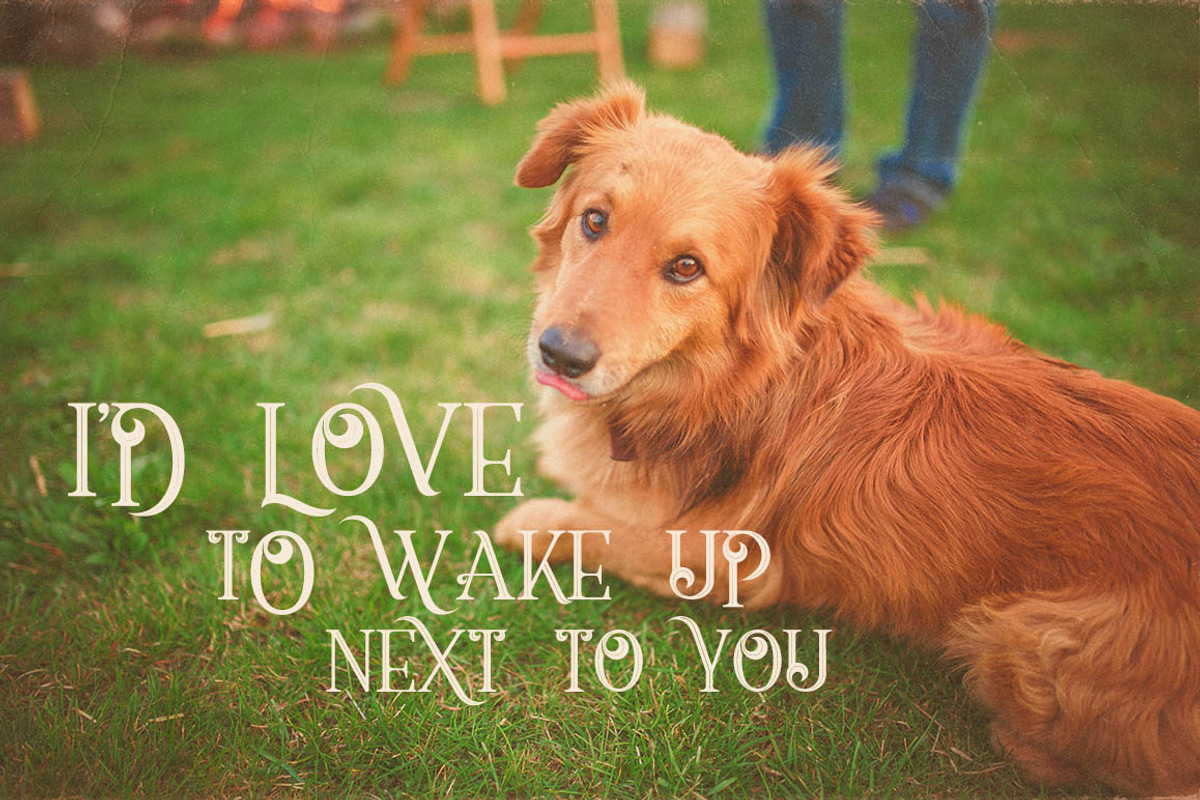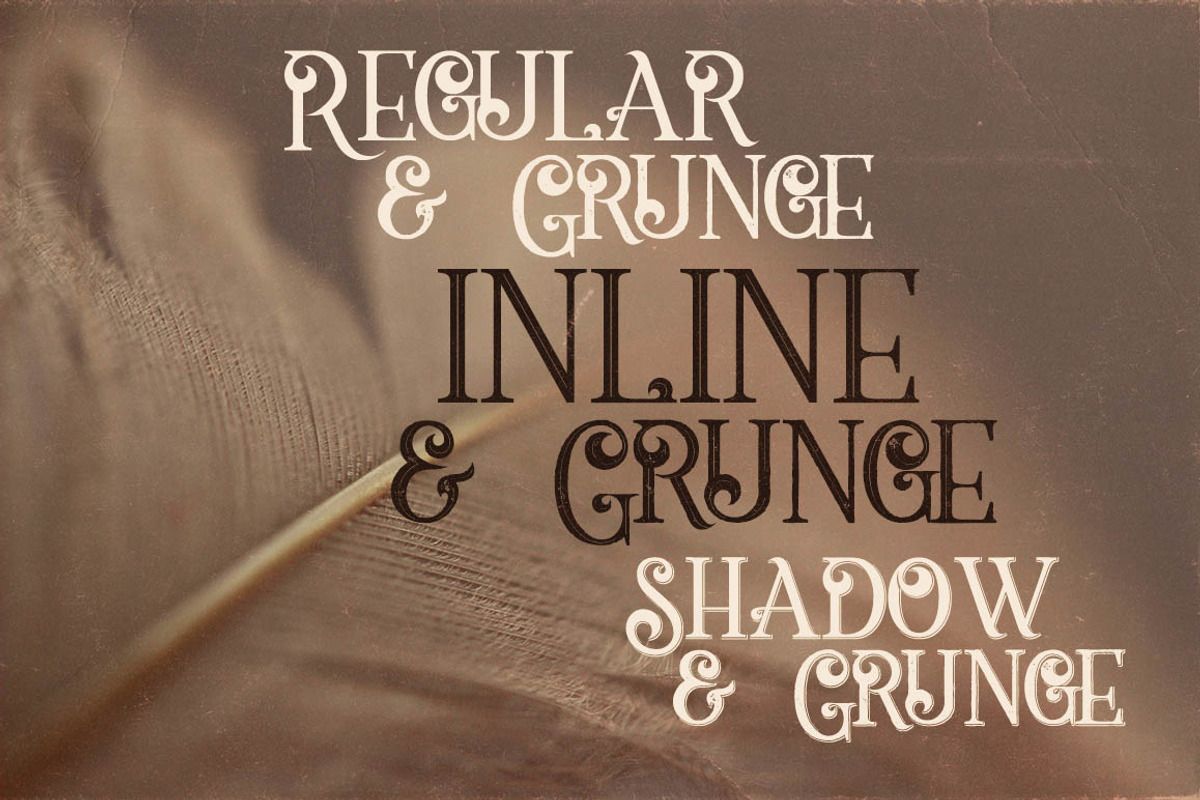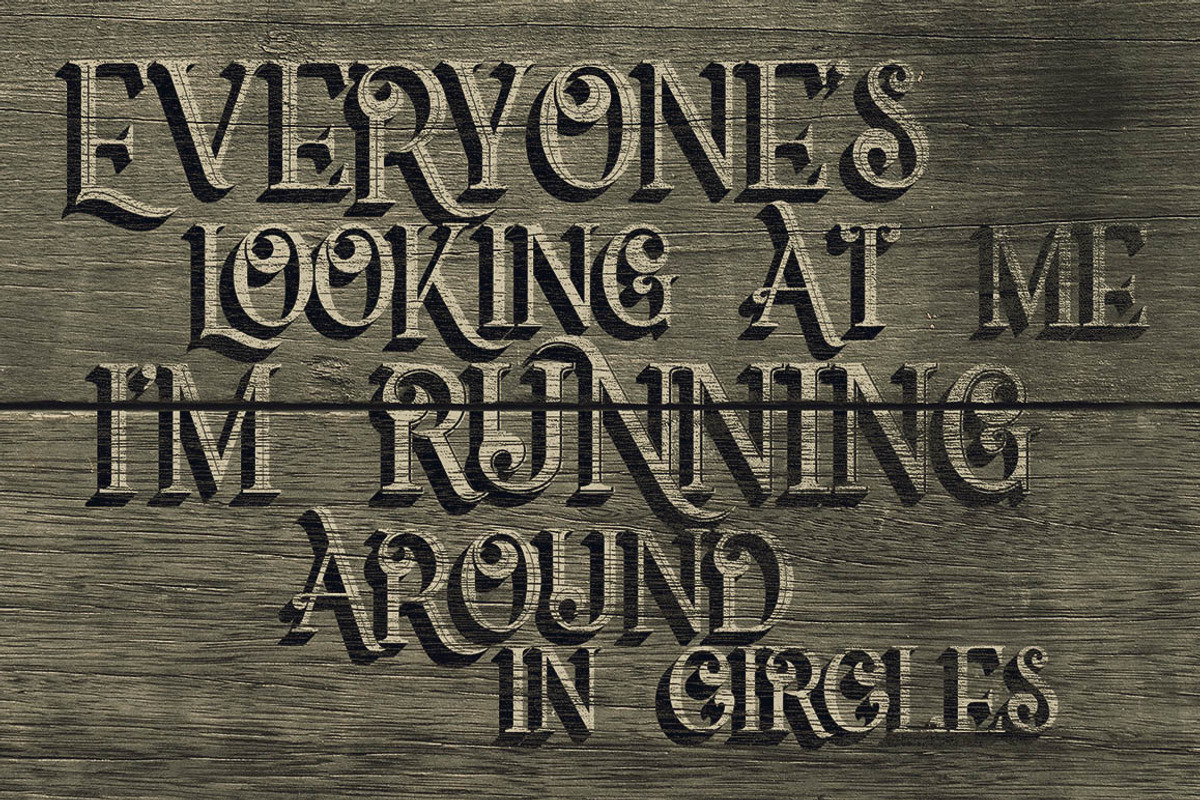
Flamingo - Vintage Style Font
Flamingo - Vintage Style Font by JumboDesign is a font selected for branding, posters, packaging, typography.
Why Flamingo - Vintage Style Font is worth a look
Flamingo - Vintage Style Font by JumboDesign fits naturally into Branding, posters, packaging, typography.